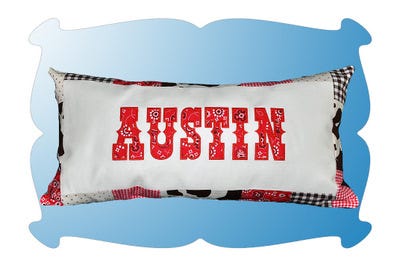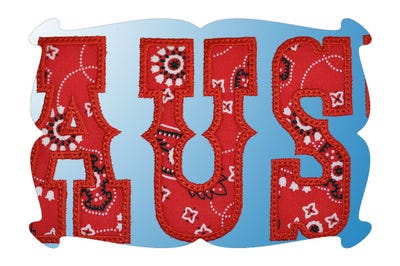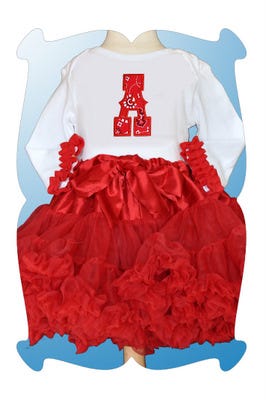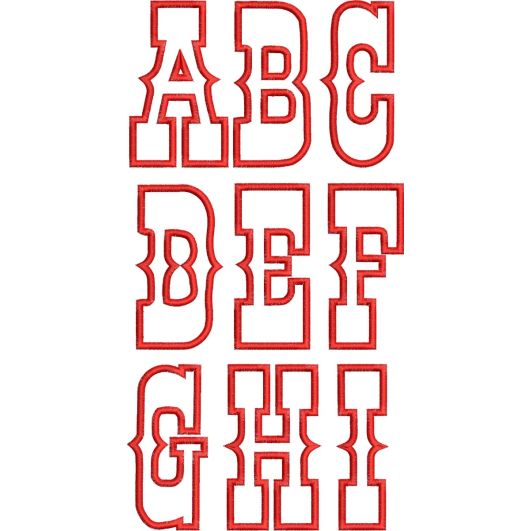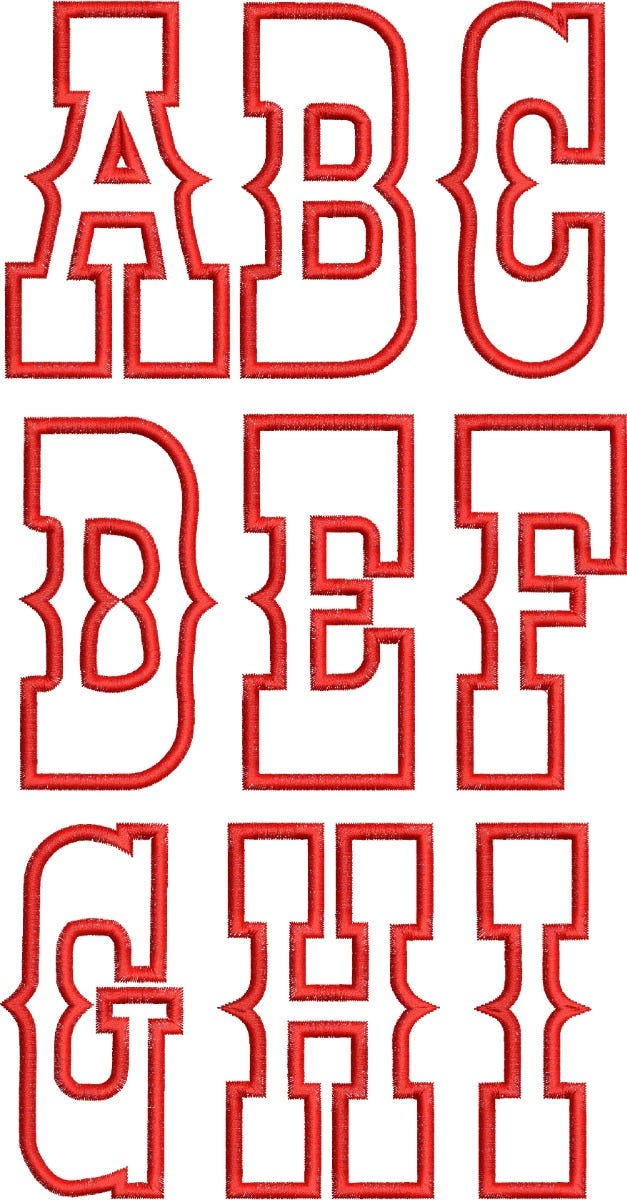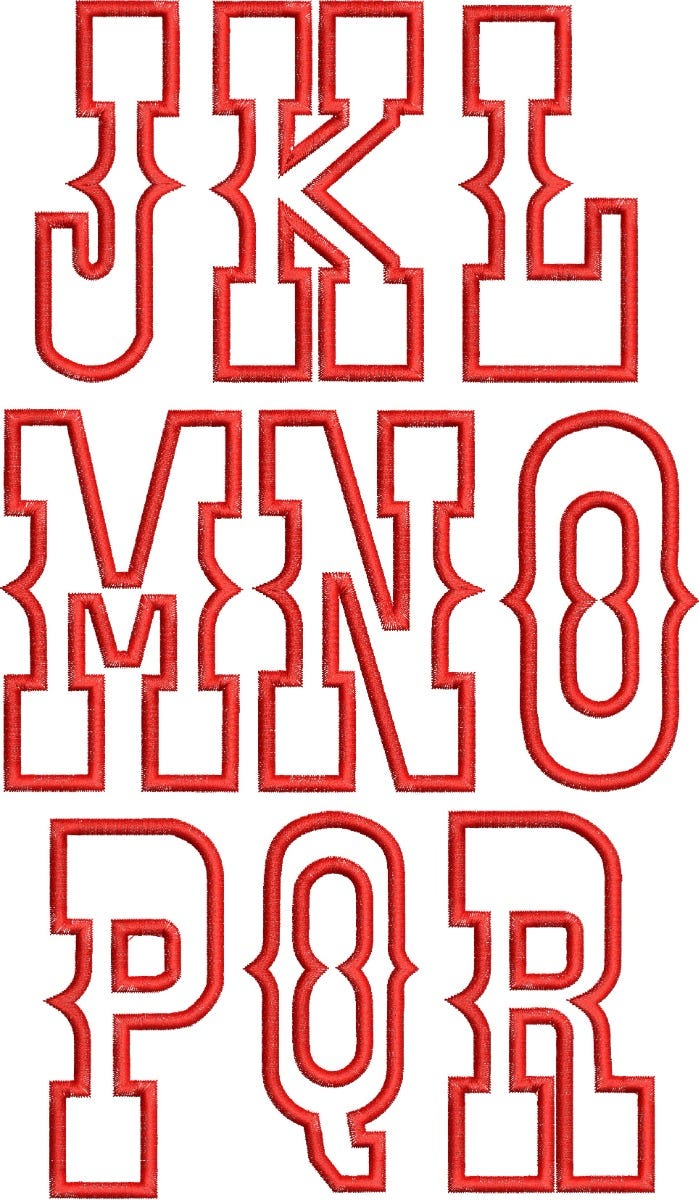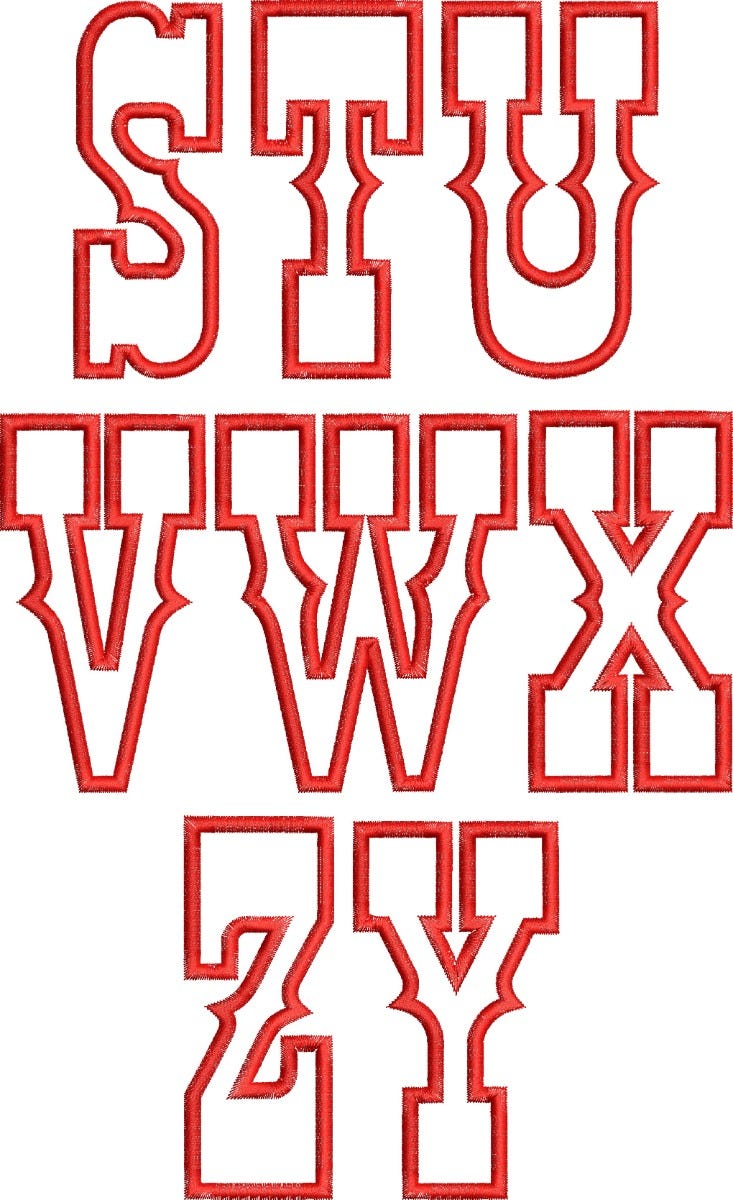
Cowboy Applique Font
...another fun applique font.
3 finishing styles: satin, zig zag, satin with decorative stitch.
Upper case letters A thru Z. Numbers 0-9.
Sizes included: 3.5, 4.5, 5.5 inches.
You don't have to be named Austin, Matt or Dylan to enjoy a cowboy font.
Cowboy fonts are cool no matter what your name is!
The close up photo shows the extra detail of the stitching.
And just when you thought this was a font just for boys....
Abbie proves you wrong!
Add a jean jacket and cowboy boots....andĀ she's all set!Ā Ā
A "town and country" look for sure.
Design Details:Ā
All letters and numbersĀ come in:
1.Ā Ā Traditional satin applique
2.Ā Ā Zig zag applique
3.Ā Decorative satinĀ appliqueĀ (as shown in the close up photo).
3 sizes of upper case letters: 3.5 inch, 4.4 inch and 5.5 inch.
3 sizes of numbers: 3.5, 4.5 and 5.5 inch.